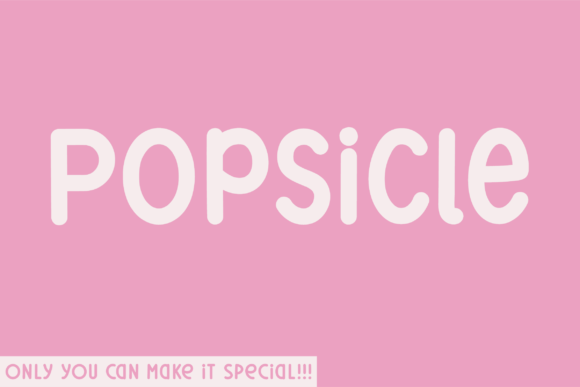
In a world awash with digital notes, monotony reigns supreme. But what if you could escape the mundane and transform your notes into vibrant, delightful expressions of your thoughts? Step into the world of Popsicle Font – the ultimate font companion for your digital musings.
Popsicle Font, a brainchild of Hanna Bie, is an extraordinary sans serif font that defies convention. Crafted with an unwavering commitment to authenticity, Hanna painstakingly created this font without altering a single node in each character's indentation. This unique approach imbues Popsicle Font with a captivating charm and a playful spirit that sets it apart from the ordinary.
Unleash your creativity and let your digital notes burst with personality. With Popsicle Font, transform your words into captivating works of art, where every stroke dances with individuality. Quotes, notes, tees, and product designs – no matter the canvas, Popsicle Font elevates your creations to new heights of visual appeal.
Immerse yourself in a symphony of design possibilities, from playful patterns to captivating illustrations. Popsicle Font's natural sans serif style seamlessly blends with your artistic vision, allowing you to weave messages that resonate with your audience. Websites, social media posts, brochures, flyers – let Popsicle Font become your trusted partner in conveying your message with flair.
But the allure of Popsicle Font extends beyond aesthetics. Its meticulous craftsmanship ensures readability and clarity across various digital platforms, guaranteeing that your words shine through, unencumbered by pixelated distortions.
Join the growing community of creatives who have embraced Popsicle Font as their go-to choice for digital adventures. Let your words dance with joy, your designs shimmer with uniqueness, and your notes transform into masterpieces that captivate and inspire. Embrace the Popsicle Font revolution and unlock a world of design possibilities that will leave an indelible mark on your audience.